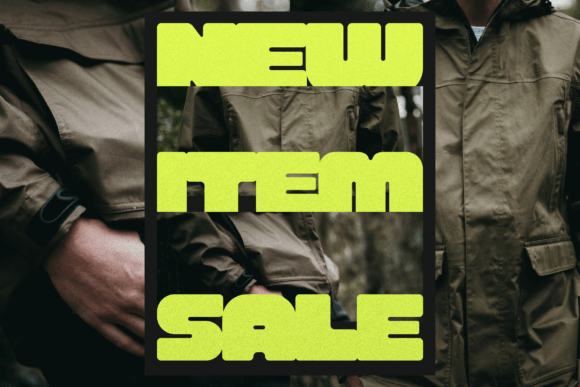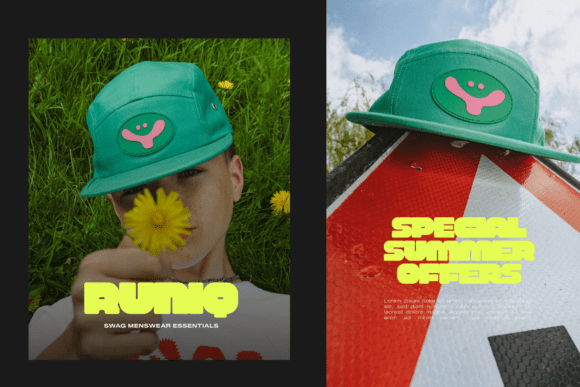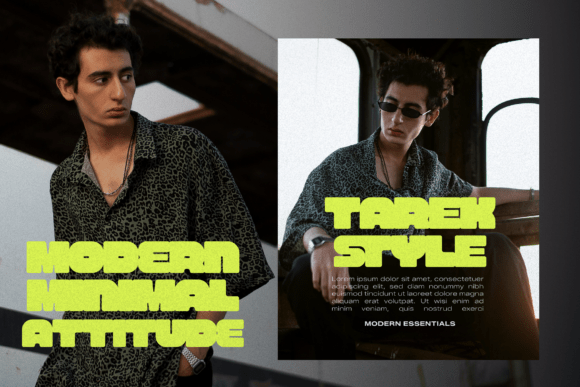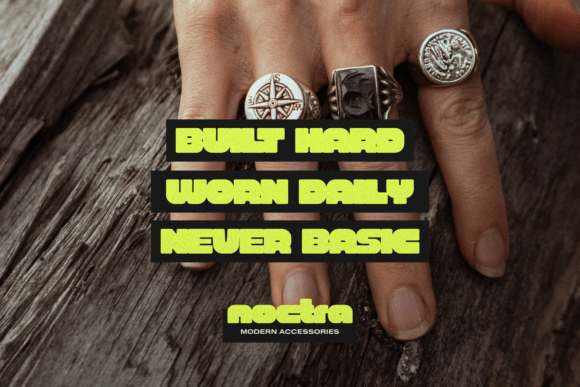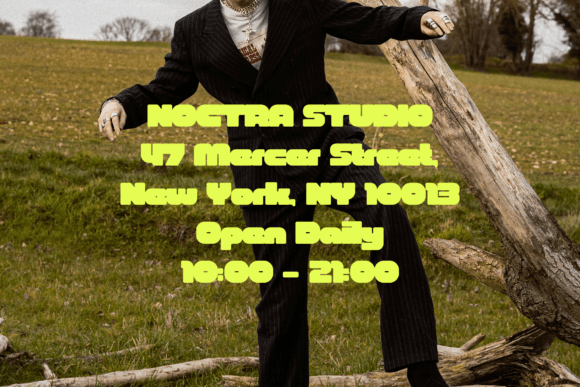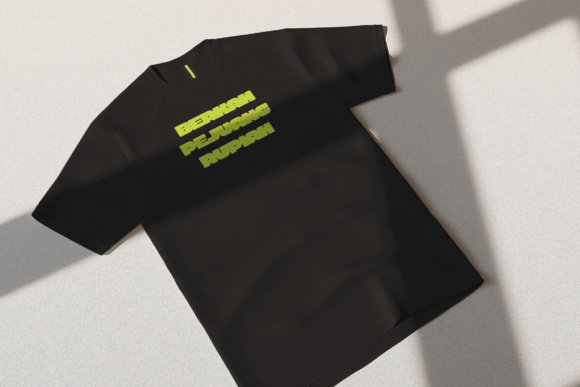
Introduction to Nocpro Font
As a designer, have you ever been working on a creative project, pouring over every detail, only to realize that one missing element can make all the difference? The perfect font can elevate your design from good to great, and that’s exactly what the Nocpro Font can do. With its bold, industrial aesthetic, this powerhouse font is the ultimate game-changer for designers looking to make a statement.
Whether you’re working on a high-impact streetwear branding project, a cinematic sci-fi title sequence, or an electronic music event poster, the Nocpro Font is the perfect design resource to bring your vision to life. Its ultra-thick, blocky letterforms and minimalist negative space create a visual weight that’s both raw and refined, making it a valuable addition to any designer’s toolkit.
Key Features of Nocpro Font
- High-quality, professional design resource ideal for creative projects.
- Unique, modern font style with a transparent background, allowing for seamless integration with any design.
- Perfect for use in logos, branding materials, and other visual design elements.
Honest Review: Nocpro Font
I recently stumbled upon the Nocpro Font, and I must say it’s been a game-changer for my design projects. As a designer, I’m always on the lookout for high-quality fonts that can elevate my work and give it that extra oomph. The Nocpro Font delivers just that.
Here are some things that I think work particularly well with this font: ✨
- Its sleek and modern design makes it perfect for creative projects that require a touch of sophistication.
- The transparent background allows for seamless integration with other design elements, making it a great choice for graphic designers.
However, I do have a few limitations to mention: ⚠️
- The font may not be ideal for projects that require a bold, attention-grabbing font.
Overall, I’m thoroughly impressed with the Nocpro Font. Its versatility, high quality, and free download option make it an excellent addition to any design resource library. Whether you’re working on a personal project or a commercial one, the Nocpro Font is definitely worth checking out.
How to Use Nocpro Font
The Nocpro Font is a versatile design resource ideal for creative projects that require a unique and eye-catching touch. With its free download option, you can easily incorporate this high-quality font into your design workflow.
Tips for Getting the Most Out of Nocpro Font
For optimal results, use Nocpro Font in combination with other design elements that complement its unique style. Experiment with different font sizes, colors, and arrangements to create a visually appealing design.
Nocpro Font is ideal for:
- Creating eye-catching titles and headings.
- Designing logos and branding materials.
- Adding a unique touch to presentations and documents.
Q: Can I use the Nocpro Font with a transparent background?
Yes, the Nocpro Font is designed to be used with a transparent background, making it perfect for designs that require a high level of customization. You can easily adjust the background color or texture to match your design requirements.
Q: What is the recommended font size for the Nocpro Font?
The recommended font size for the Nocpro Font varies depending on the design context. However, as a general rule of thumb, we recommend using font sizes between 12pt and 48pt for optimal legibility and visual impact.